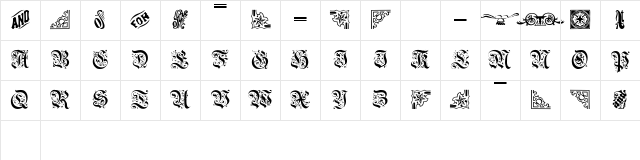
Shifter 3 Regular
Complete Shifter 3 Regular glyph index. Displaying only characters natively supported by Shifter 3 Regular font.
Design Context for Shifter 3
Shifter 3 is a composed and adaptable typeface that performs quietly and consistently across a wide range of design contexts.